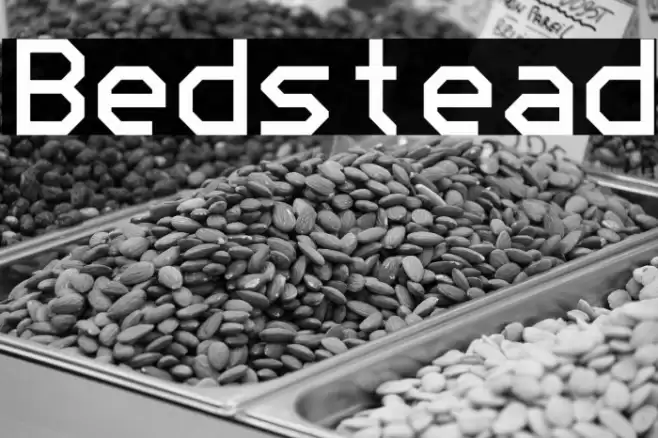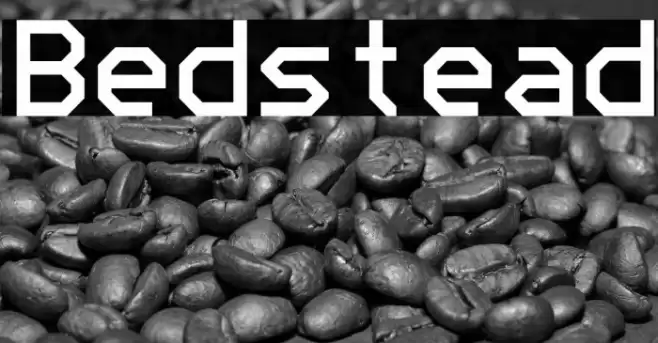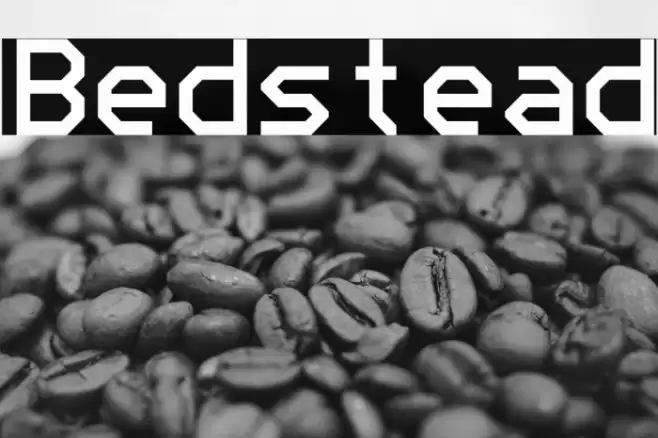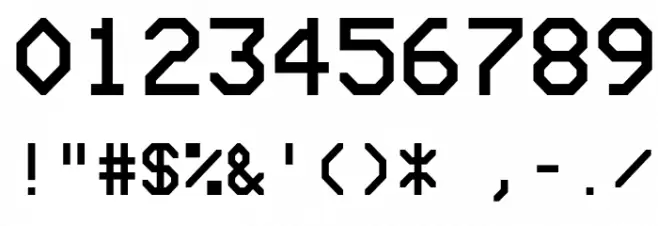
Bedstead Font
Bedstead Description
This font features a geometric, monospaced design with a distinctly technical and digital aesthetic. Each character is constructed with uniform stroke widths, creating a clean and consistent appearance. The angular shapes and straight lines give it a modern, minimalist feel, reminiscent of early computer typefaces. The uppercase and lowercase letters maintain a uniform height, enhancing readability and structure. The numerals and special characters are designed with the same precision, ensuring a cohesive look across all text. This font's simplicity and clarity make it suitable for various digital and print applications.
A geometric, monospaced font with a technical, digital aesthetic from Uncategorized fonts.